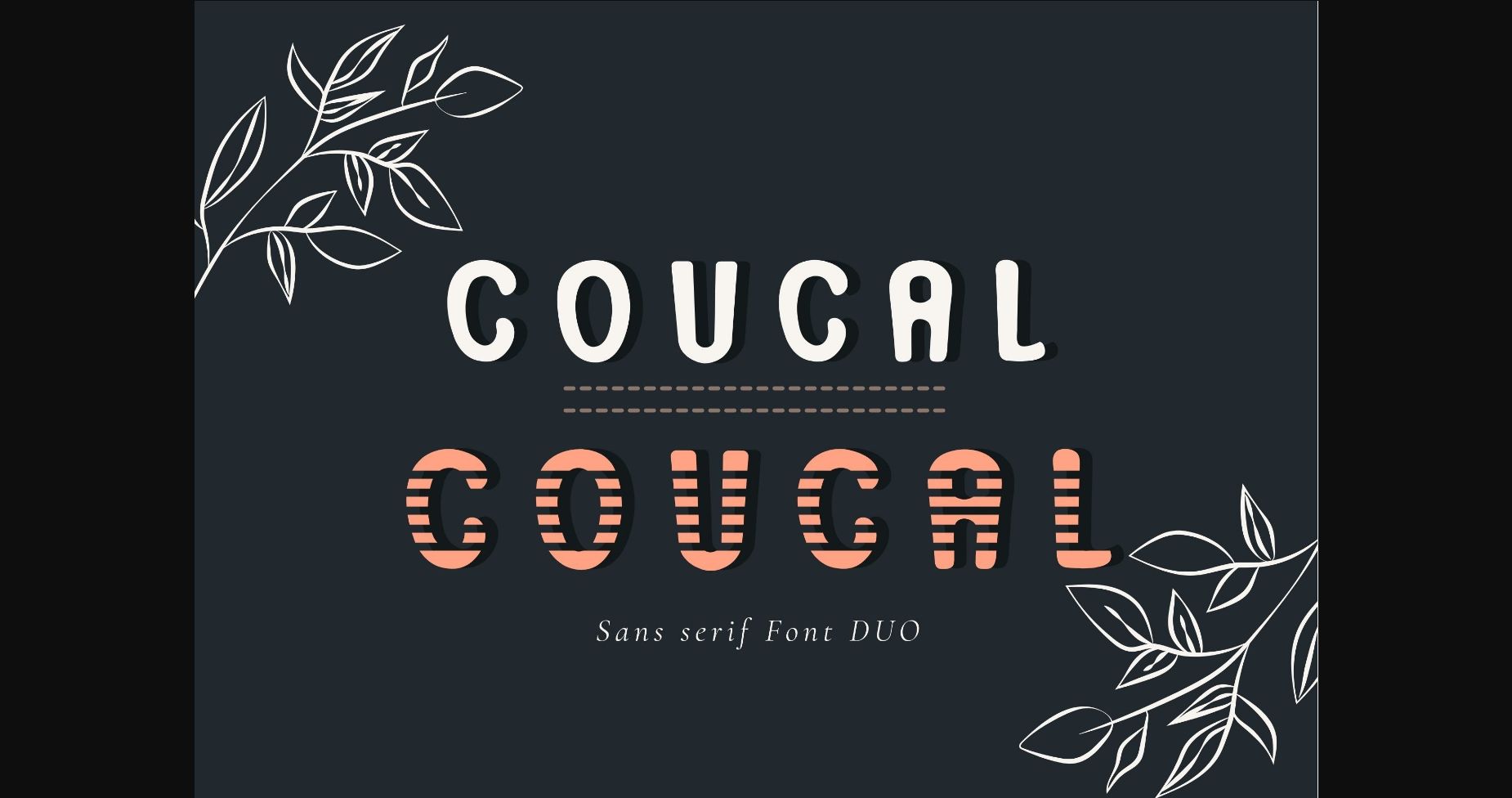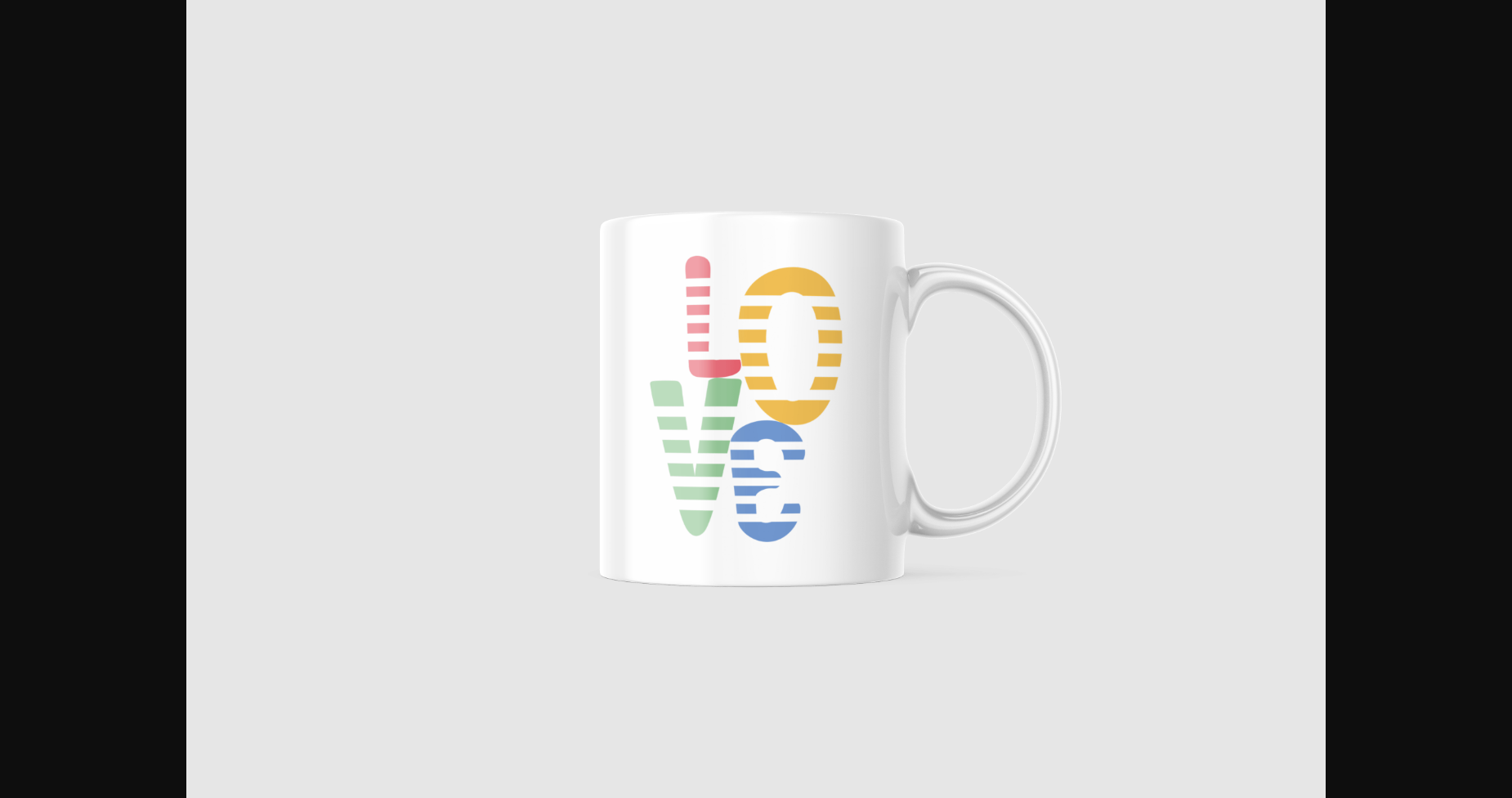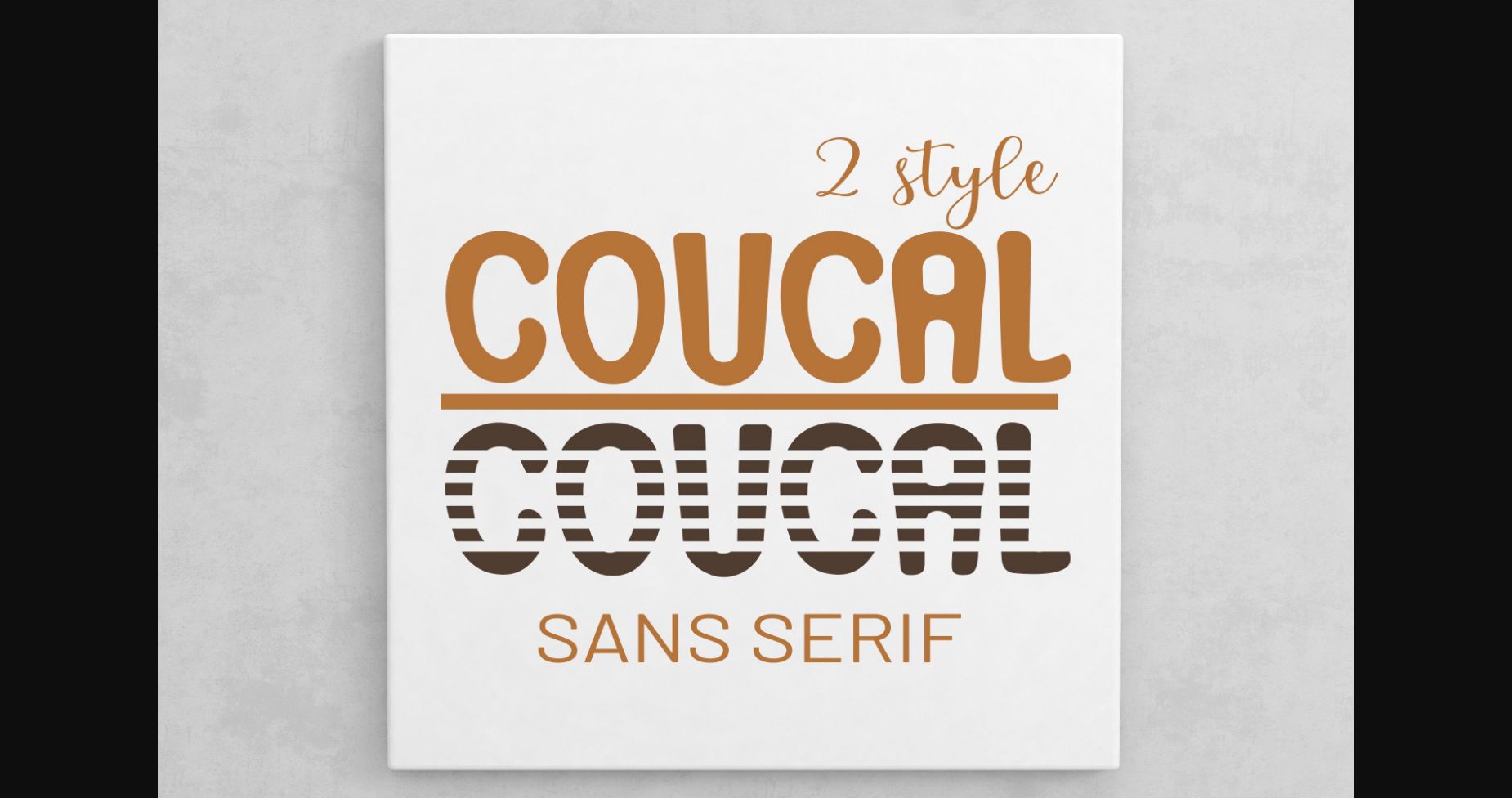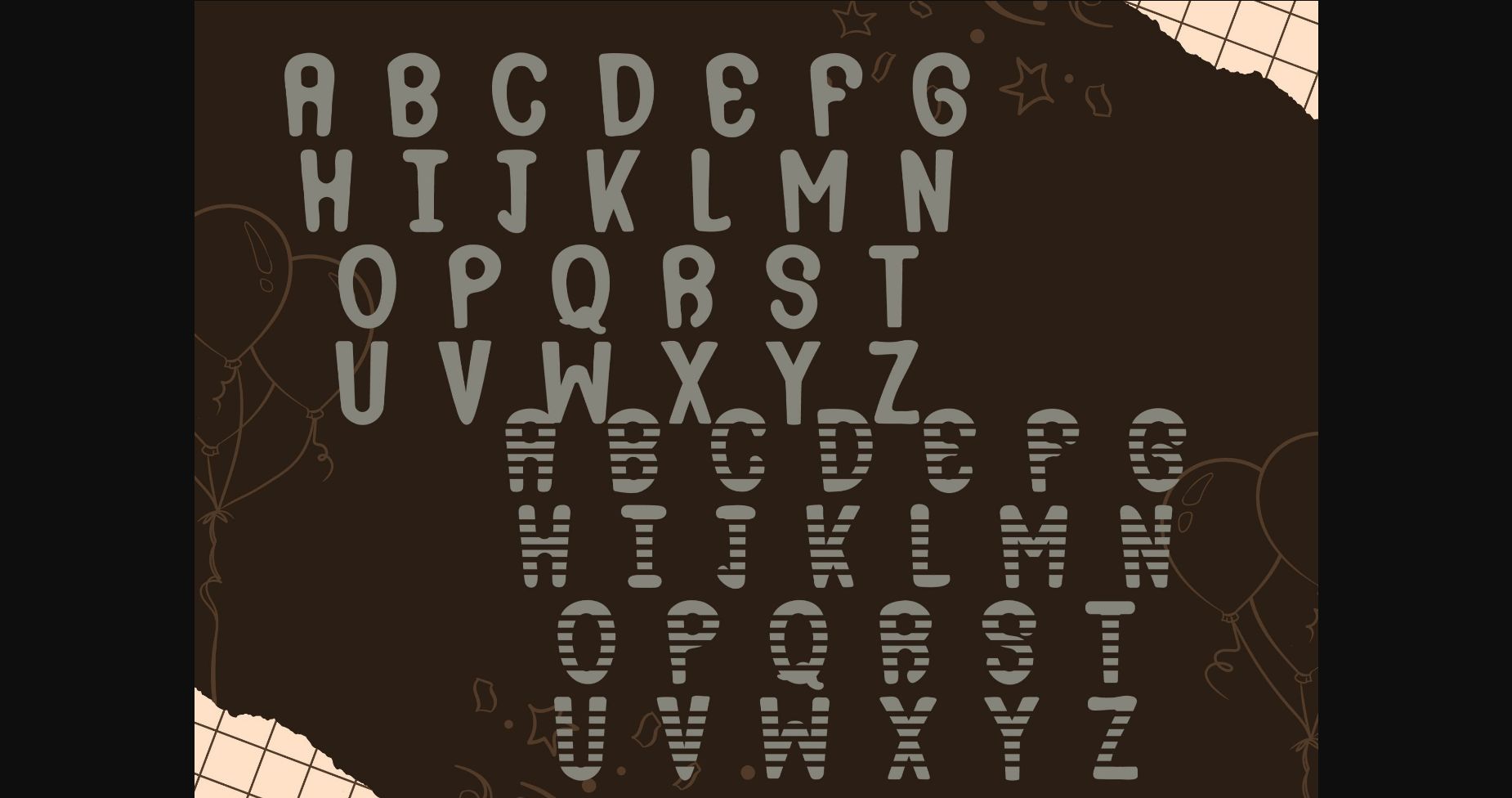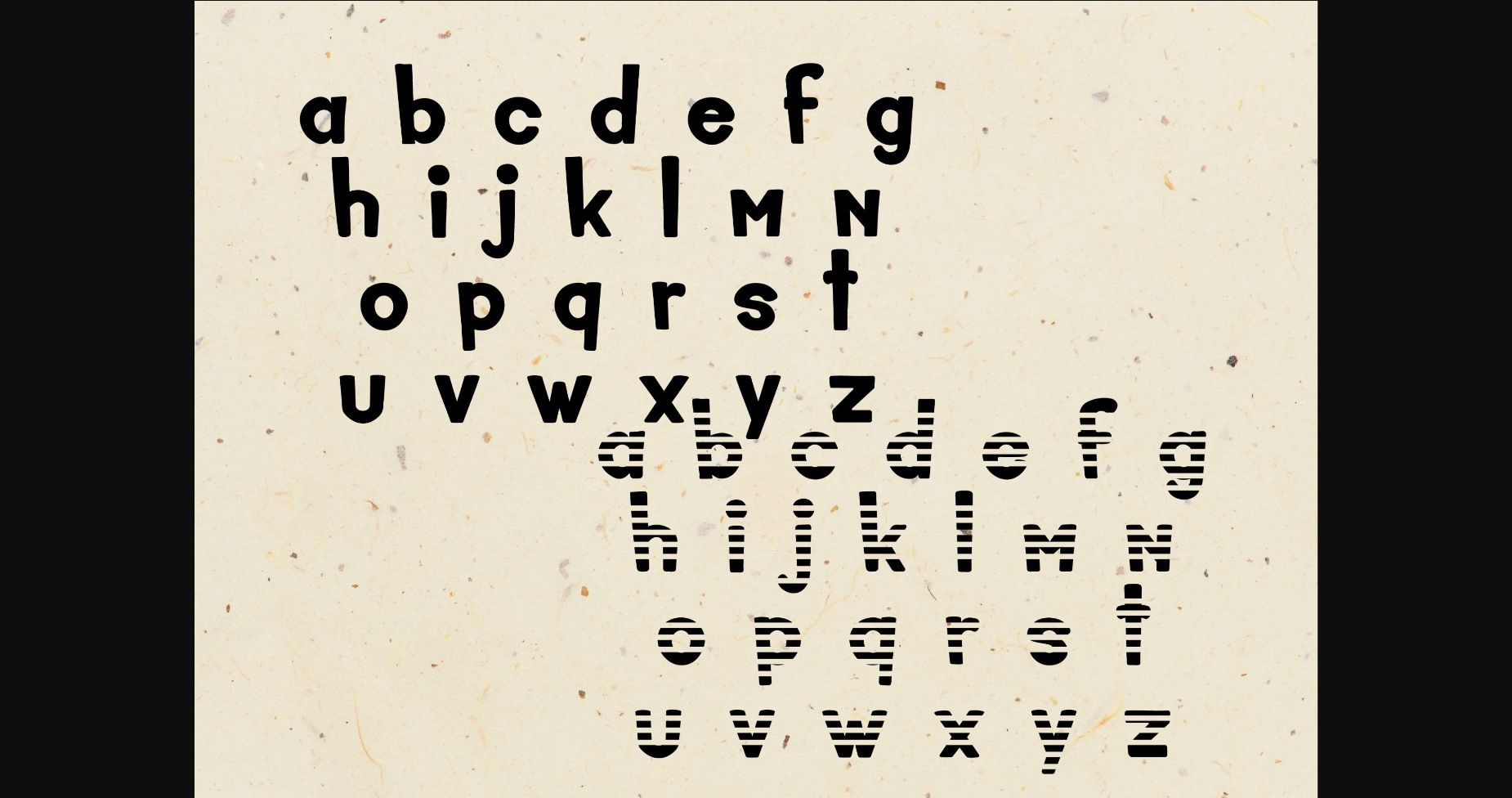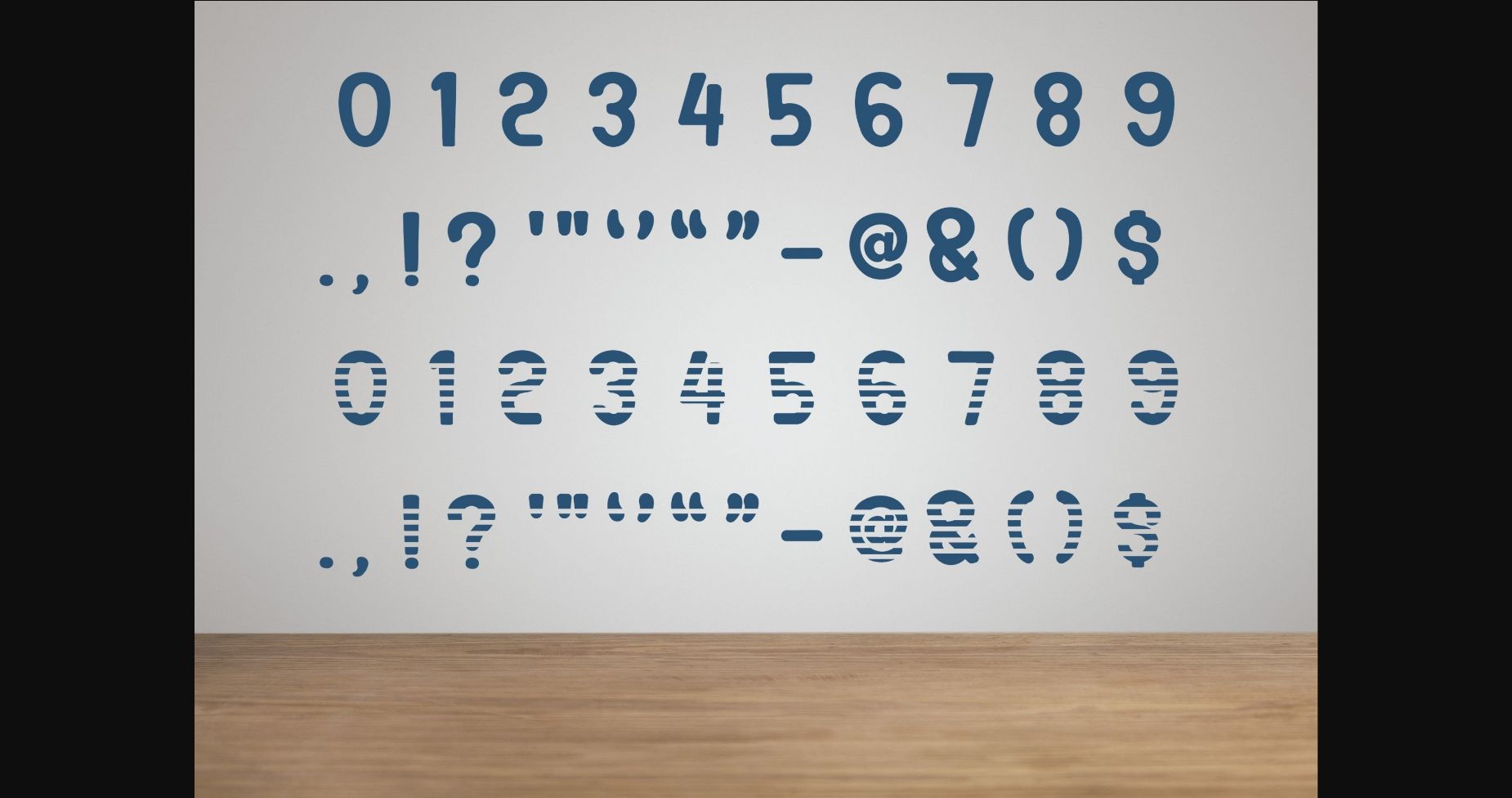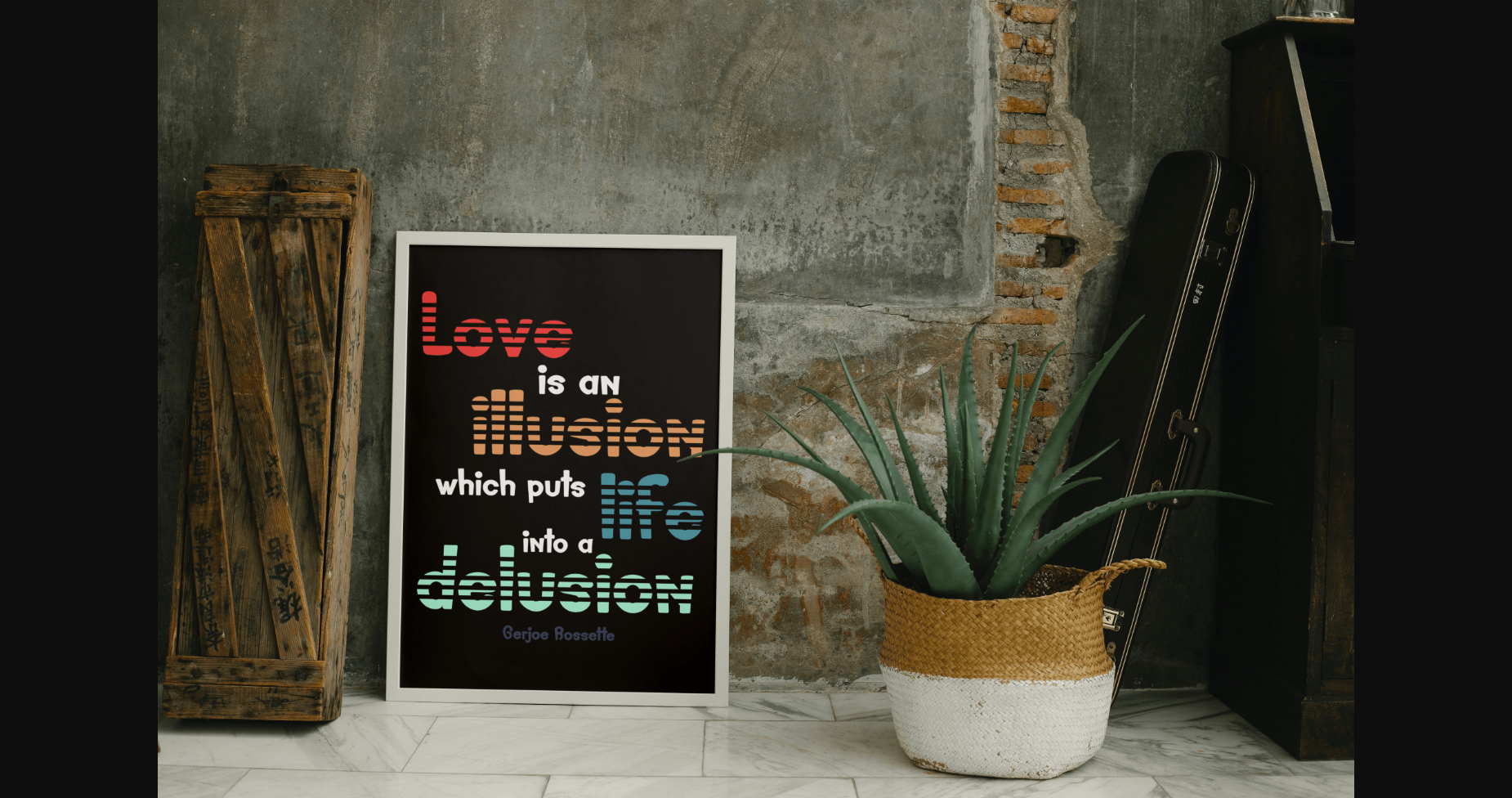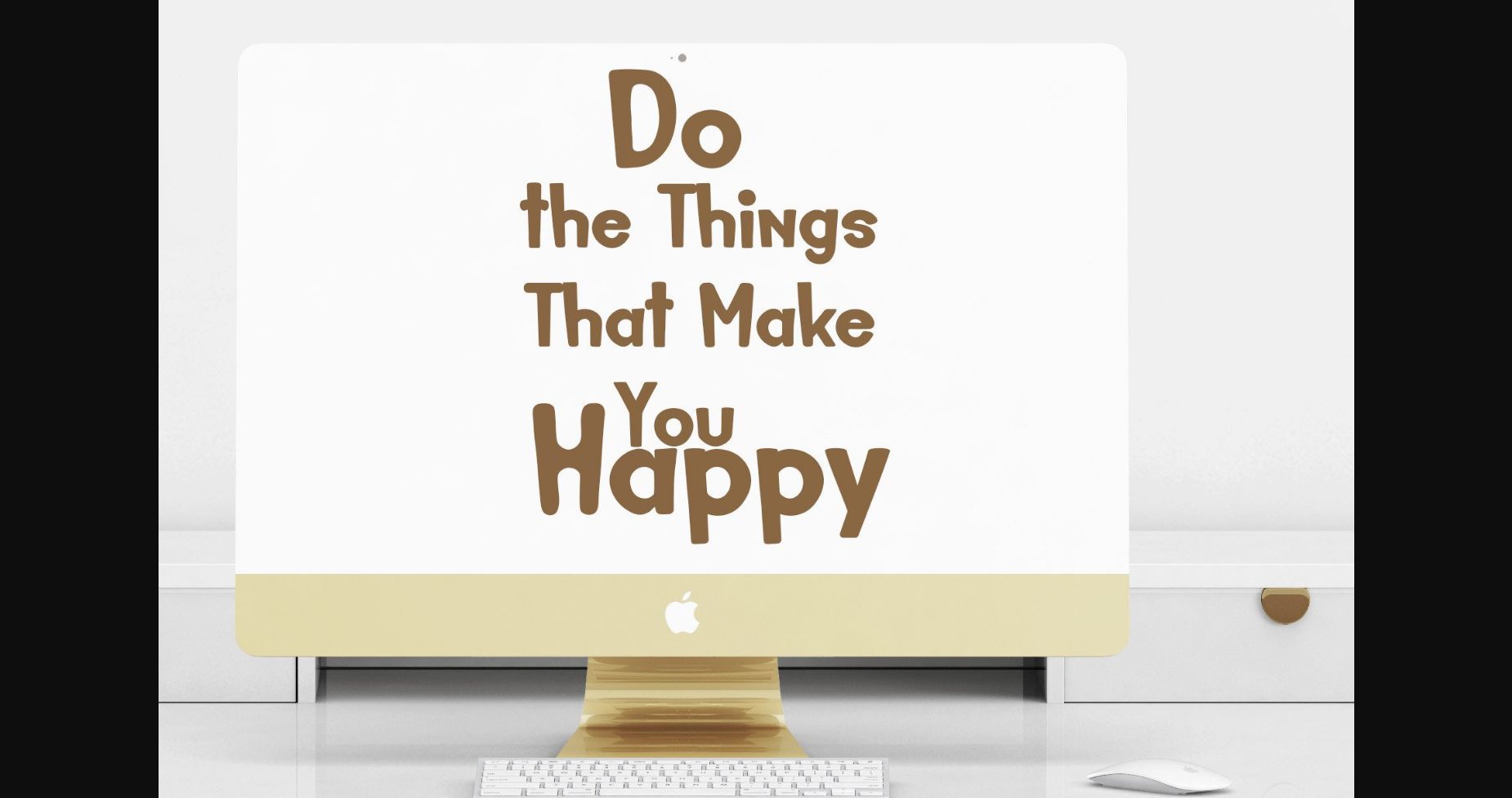
HomeSans Serif FontsCoucal Font Sans Serif Fonts Coucal Font FacebookXPinterestWhatsApp 1 of 10 ... Coucal Font Poster 2... Coucal Font Poster 3... Coucal Font Poster 4... Coucal Font Poster 5... Coucal Font Poster 6... Coucal Font Poster 7... Coucal Font Poster 8... Coucal Font Poster 9... Coucal Font Poster 10... About Coucal Font Coucal is a cool and modern sans serif font. No matter the topic, this font will be an incredible asset to your fonts’ library, as it has the potential to elevate any creation. DOWNLOAD NOW People also explored Hamila Font Autumn in Love Trio Font Discovery Book Font Wattiny Pro Font Sate Ayam Font Wilame Font Calstavier Font Ansbach Font Reino Xide Font 304 0 TagsCoucalCoucal Font Previous articleLinneri FontNext articlePaleolithic Font LEAVE A REPLY Cancel reply Comment: Please enter your comment! Name:* Please enter your name here Email:* You have entered an incorrect email address! Please enter your email address here Website: Save my name, email, and website in this browser for the next time I comment. Personal Use Free Clumed Personal Use Free Read more about this font Manhattan Personal Use Free Read more about this font Equalizer Script Personal Use Free Read more about this font Starry Cakes Personal Use Free Read more about this font BLOG How to Cut Any Font on Cricut: Convert a Font to SVG (Free) Turn any font into a clean SVG so it cuts crisp on Cricut - a quick 3-step workflow using a free font-to-SVG tool. Elegant Wedding Invitation Fonts – Handwritten & Script Fonts Top 7 Google Fonts Alternatives for Faster and Privacy-Friendly Web Design (2025) Transform Your Website: Elevate Your Typography with 7 Best Web Font Generators